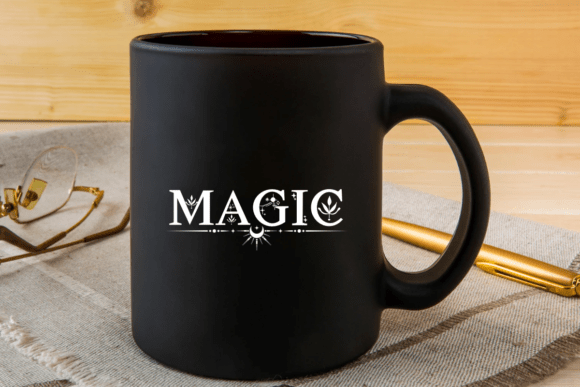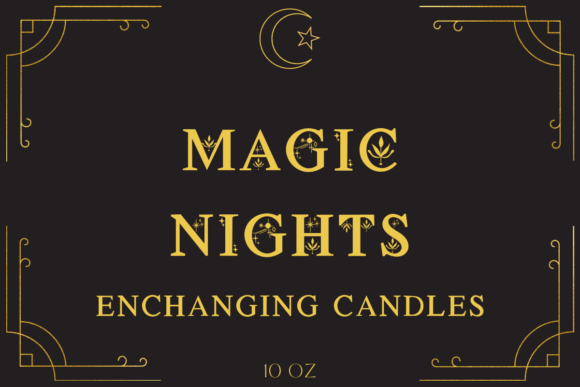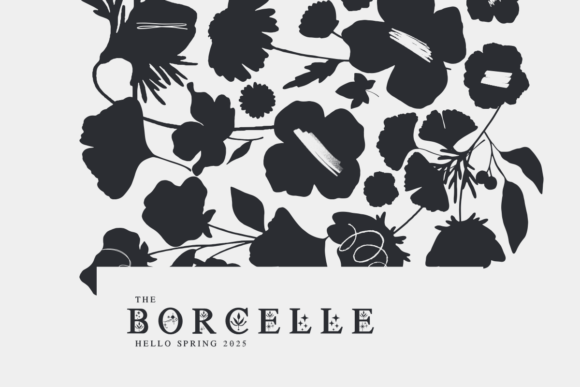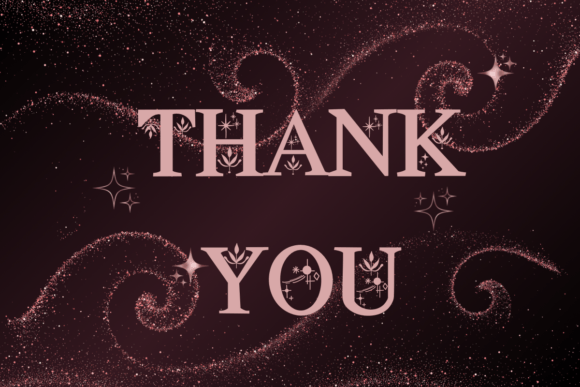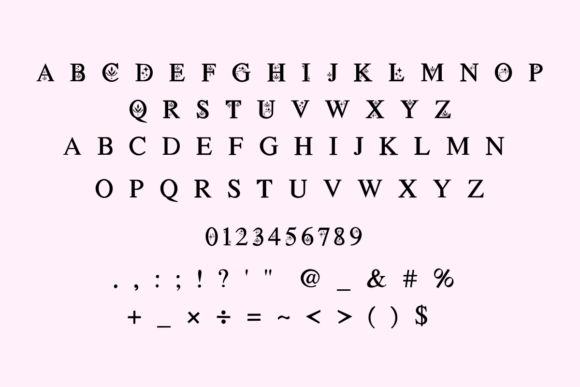
Introduction to Floral Magic Font
Immerse yourself in the enchanting aesthetic appeal offered by Floral Magic.
Specifically crafted as a stunning decorative font, Floral Magic invites creativity and adds a touch of whimsy to your everyday jottings and notes Whether flipping through the precious pages of your diary or crafting heartfelt messages on greeting cards, this divergent font style breathes life into every written word.
Key Features of Floral Magic Font